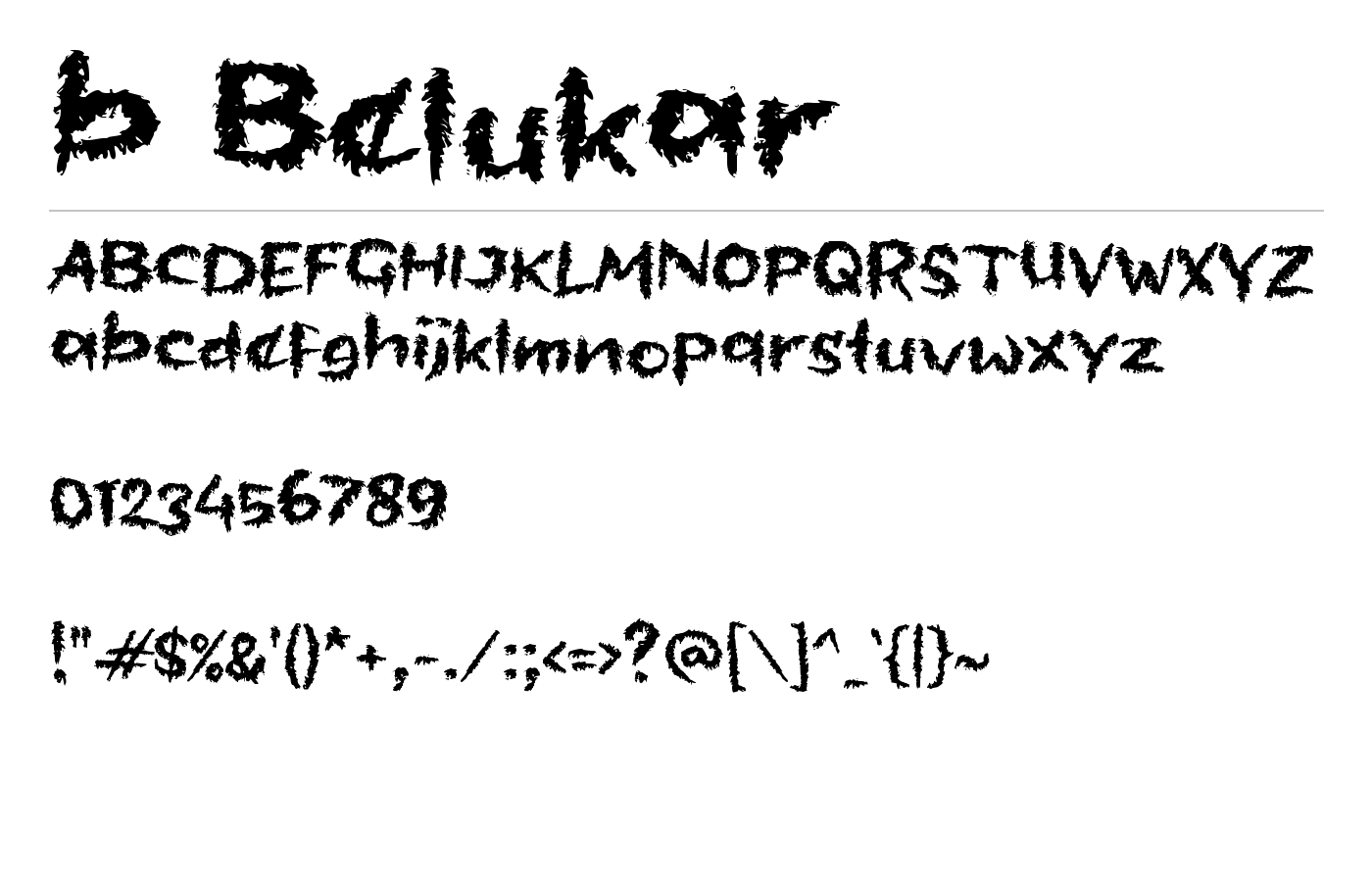
Belukar is a rough, textured sans serif font with a distressed, hand-crafted feel that resembles natural foliage or brush strokes. Its irregular, jagged edges create a bold, dynamic look that works well for creative projects, headlines, and branding that seeks an organic, edgy, or adventurous vibe. This font is ideal for adding character and energy to posters, logos, and designs that want to stand out with a raw, artistic style.
b Belukar Font
About b Belukar Font